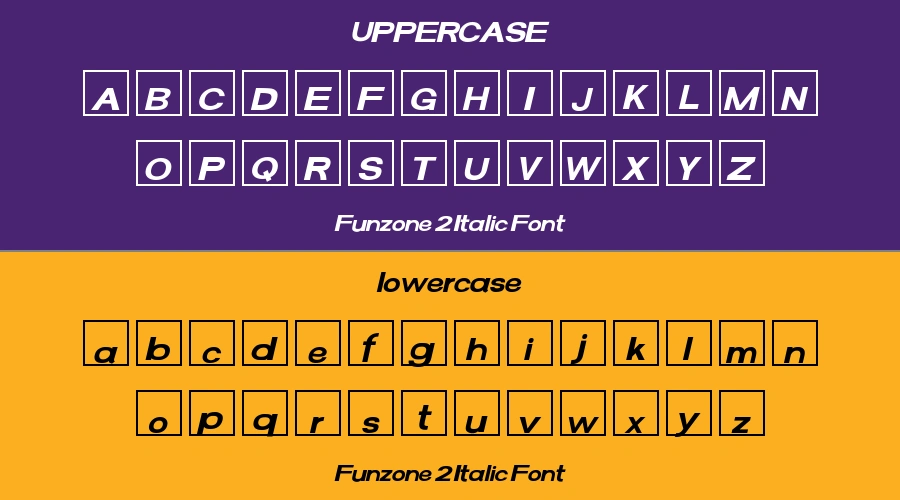
About Funzone 2 Italic Font
Funzone 2 Italic Font stands out for its distinctive combination of expressive curves and functionality. Ideal for social media content, it provides the originality and user trust that professional projects demand. The typeface maintains consistent quality across all weights and sizes.
Key features include refined monoline strokes and practical superior letters, enhancing typographic expression. In hero imagery applications, Funzone 2 Italic Font demonstrates exceptional numerical alignment. The cap height ratio and technical tradition contribute to its distinctive character and professional appeal.